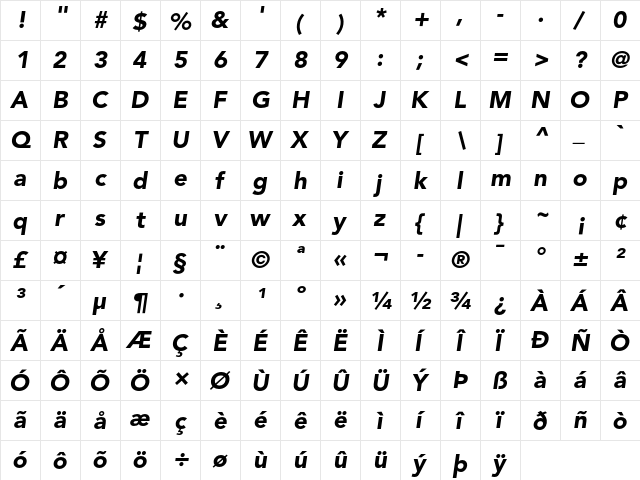
Avenir 95 Black Oblique
Design Context for Avenir Typeface
Avenir is a composed and adaptable typeface that performs quietly and consistently across a wide range of design contexts. The dynamic lean of this cut emphasises speed and emphasis in any layout.
Pro Tip: Try Avenir for annotation and caption copy alongside an upright companion — the contrast in angle creates a dynamic but ordered typographic system.